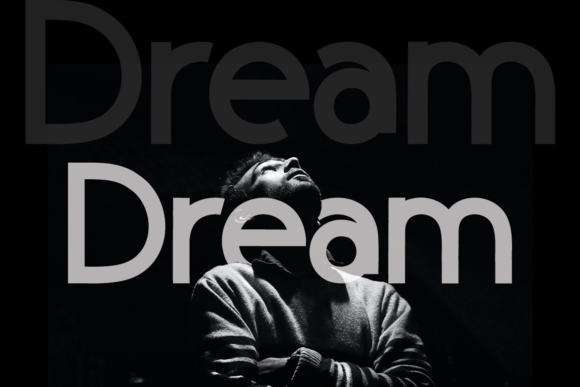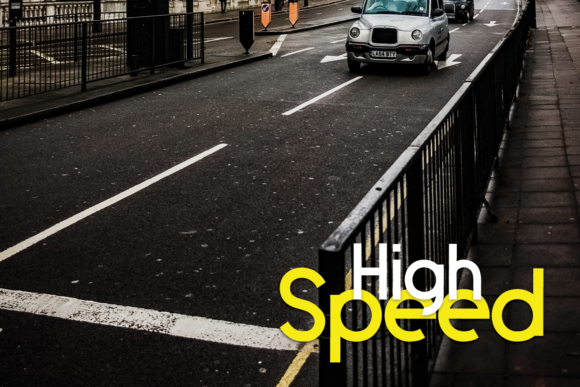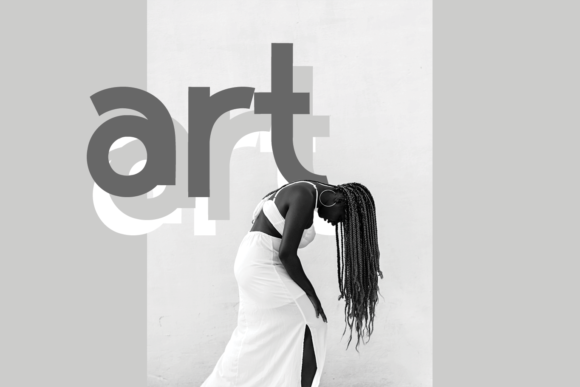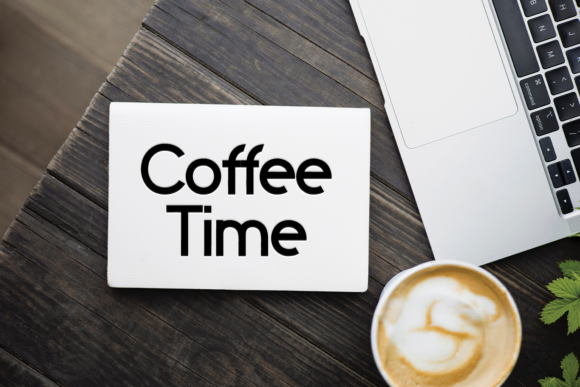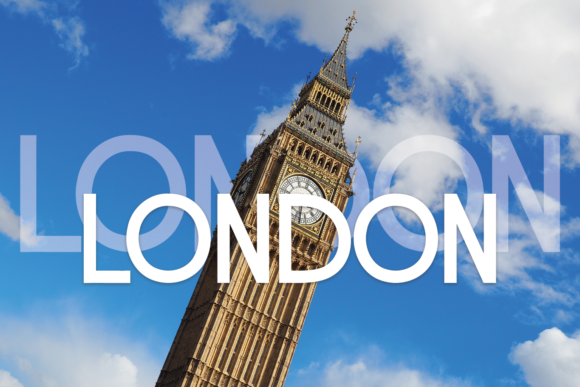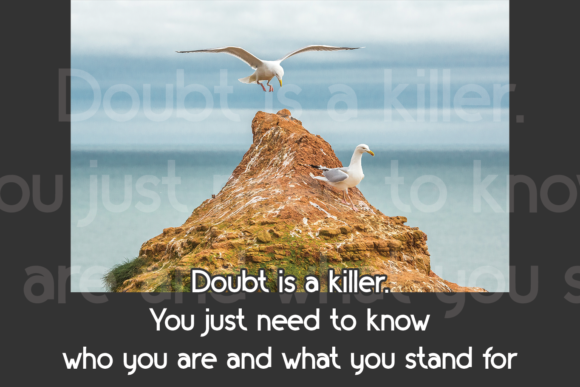
Introduction to Jogging Font
Have you ever been working on a creative project, pouring your heart and soul into it, only to realize that the font you chose is holding it back? It’s a frustrating moment, but one that can be easily avoided with the right design resource. That’s where the Jogging Font comes in – a minimal and neat sans serif font that can elevate your work to the next level.
Whether you’re a seasoned designer or just starting out, the Jogging Font is a valuable addition to your toolkit. With its clean lines and high-quality design, it’s perfect for a wide range of projects, from logos to brochures. And the best part? It’s available for free download, making it an accessible and affordable option for designers of all levels.
Key Features of Jogging Font
- High-quality design suitable for creative projects, such as posters, flyers, and brochures.
- Unique jogging-themed design elements, such as footprints and running tracks, add a fun and creative touch to any project.
Honest Review: Jogging Font
As a designer, I’m always on the lookout for high-quality design resources that can elevate my creative projects. The Jogging Font is one such resource that caught my attention.
- ✨ High-quality typography: The font is crisp, clear, and easy to read, making it perfect for a variety of design projects.
- ✨ Versatile: The Jogging Font comes in a range of weights and styles, allowing me to experiment with different looks and feels.
While the Jogging Font is a solid design resource, there are a few limitations to consider:
- ⚠️ Limited language support: The font only supports a limited number of languages, which may be a concern for designers working on projects that require multiple language support.
- ⚠️ Not ideal for small text: The font may not be the best choice for small text sizes, as the letters can become pixelated and difficult to read.
Overall, I’m impressed with the Jogging Font. While it may not be perfect, it’s a solid design resource that can add a touch of style and sophistication to my creative projects.
Getting the Most Out of the Jogging Font
To get the most out of the Jogging Font, use it in combination with other design elements, such as images and shapes. Experiment with different font sizes and colors to create a unique look.
The Jogging Font is perfect for use in fitness-related designs, such as workout plans, fitness trackers, and exercise routines. It’s also great for use in creative projects, such as posters, flyers, and brochures.